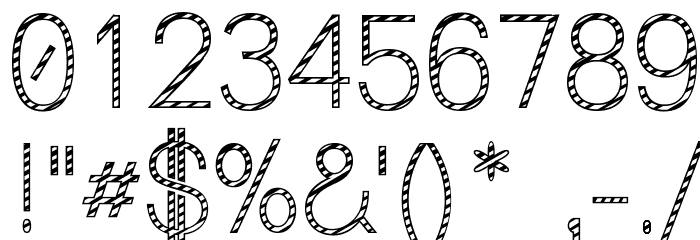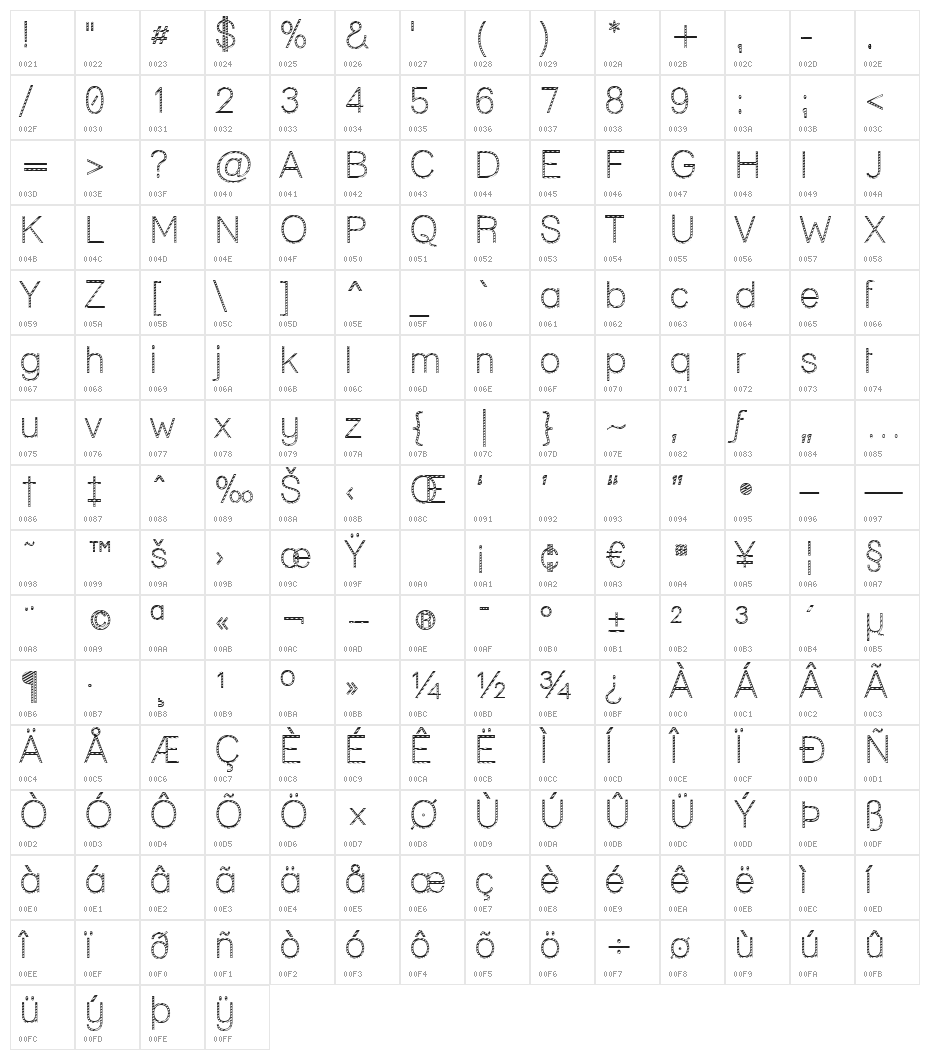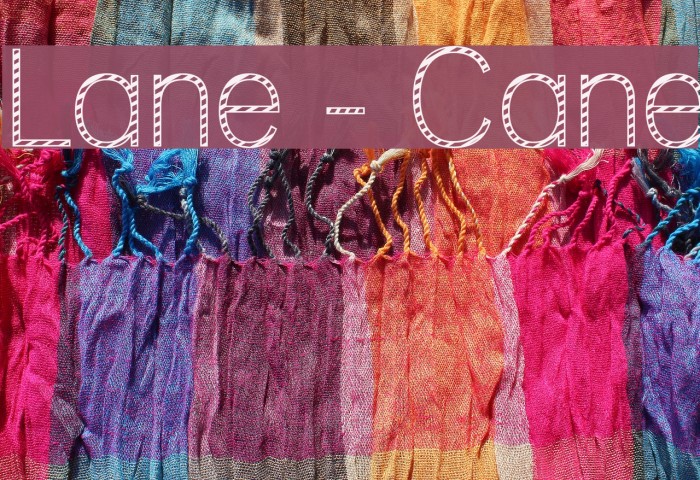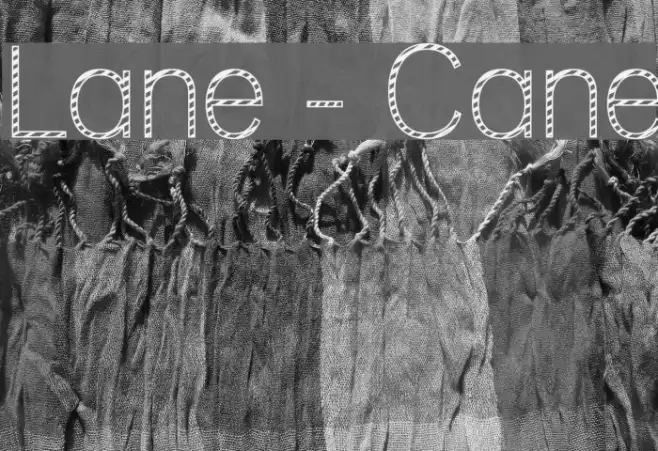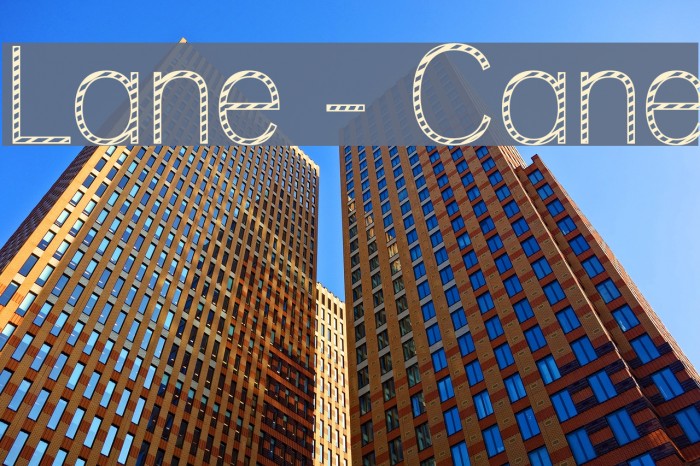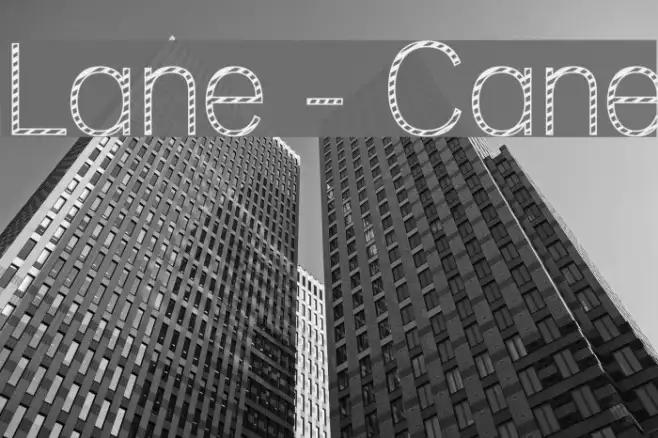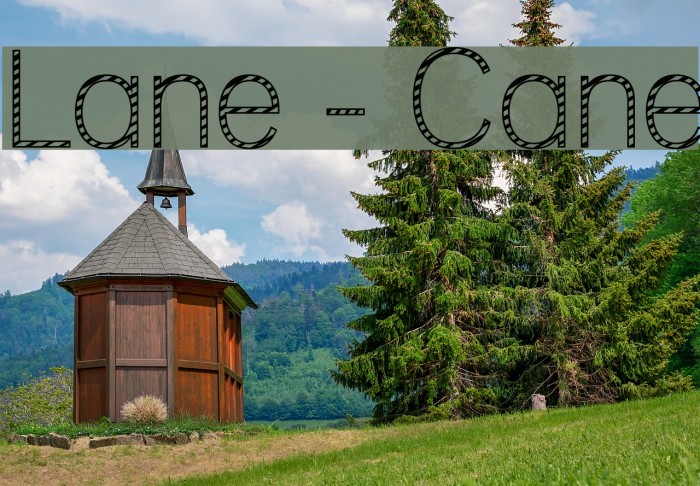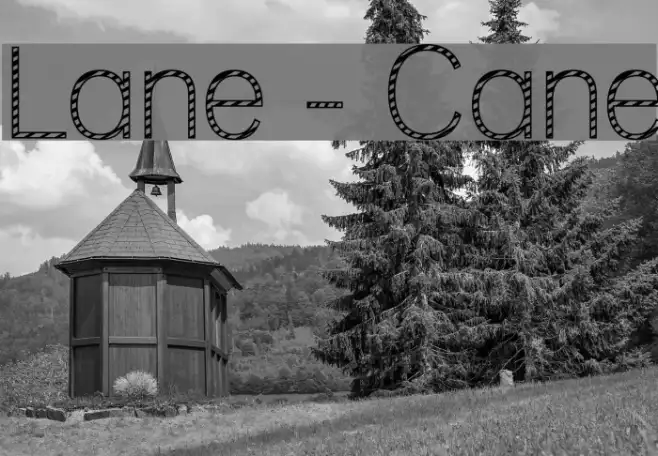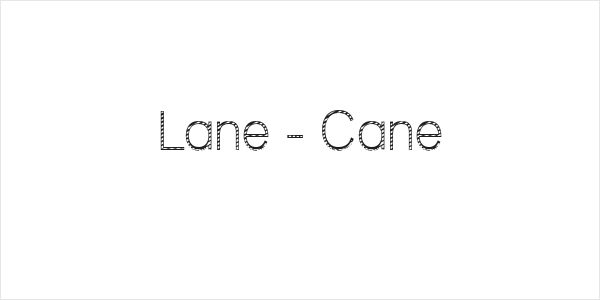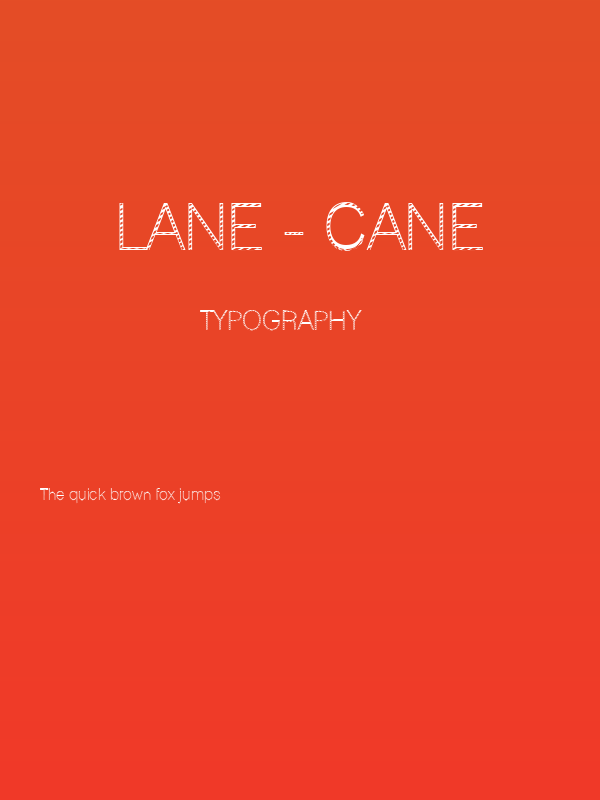
Lane - Cane Font
Lane - Cane Description
This font features a unique decorative style with a striped pattern running through each character, giving it a playful and eye-catching appearance. The letters are sans-serif, with clean lines and a modern aesthetic. The uppercase and lowercase letters maintain consistent proportions, while the numerals and special characters follow the same design theme, ensuring uniformity across all glyphs. The striped pattern adds a sense of movement and texture, making it ideal for creative projects that require a bold statement. The overall look is both contemporary and artistic, suitable for a variety of design applications.